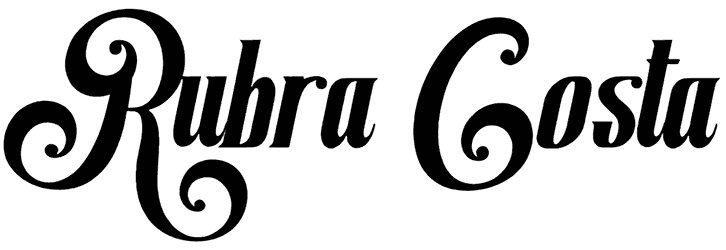
Rubra Costa Font
Rubra Costa allows you to share a classic and retro mood with customers. Just download this 70s font and apply it to stickers, tickets, apparel products, or any digital and physical layout. Pay attention that this case might be a little bit illegible. Couldn’t get enough? Discover our boundless site.